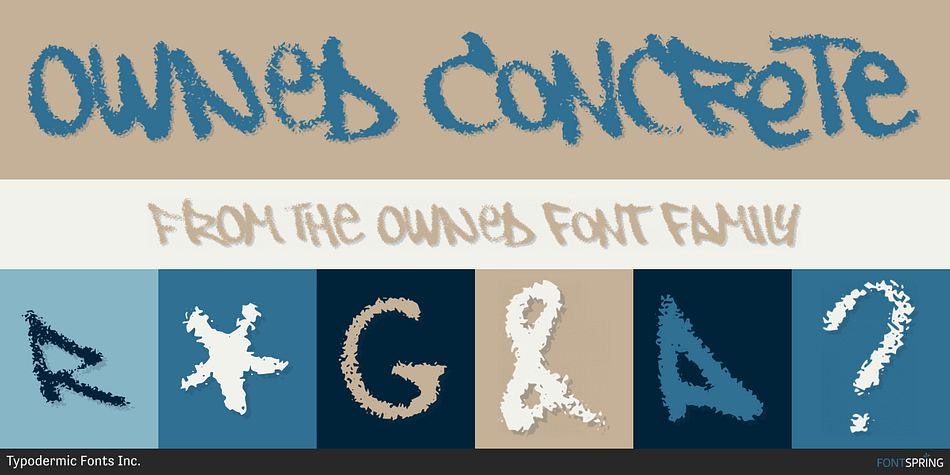
Owned Concrete
Owned is a grunge and hand display font family. This typeface has two styles and was published by Typodermic Fonts Inc.
Owned is a stunning embodiment of the urban aesthetic, with its authentic marker graffiti look and feel. This typeface is a perfect fusion of style and substance, as it captures the essence of streetwise design. Its pragmatic ligatures are not only visually appealing, but also accentuate the natural irregularities of an urgent scrawl.
The beauty of Owned lies in its diversity, as it brings together a wide range of stroke weights and angles to create a dynamic and powerful effect. The overall effect is one of urgency, as if the words were scribbled on a wall in a hurry. This typeface commands attention and grabs the viewer’s eye, making it a perfect choice for bold and impactful designs.
Owned is an exceptional typeface that is sure to make a statement in any design project. Its unique features and smart design will add an edge and grit to any design, making it a must-have for designers who want to create a bold and unforgettable impact. Whether you’re designing a logo, poster, or website, Owned is the perfect graffiti typeface to add an urban flair to your project.